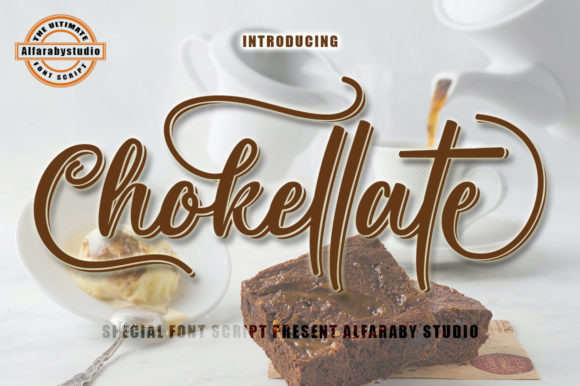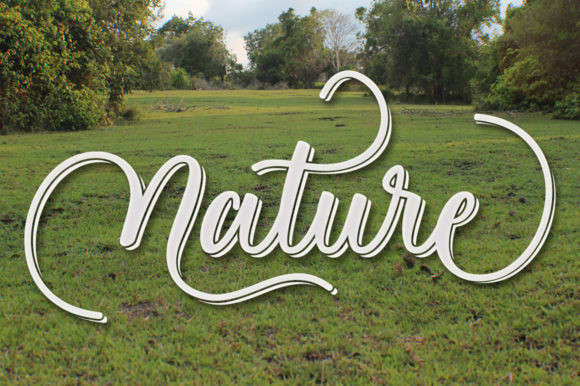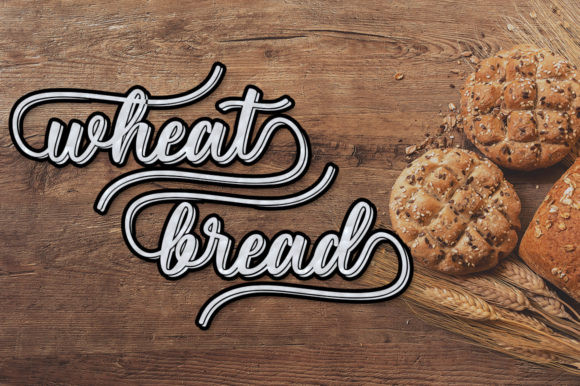
Chokellate Font
Chokellate is a tasteful and unique handwritten font. It is PUA encoded which means you can access all of the glyphs and swashes with ease! It features a varying baseline, smooth lines, gorgeous glyphs and stunning alternates.